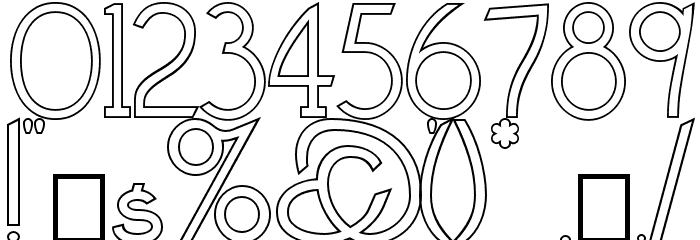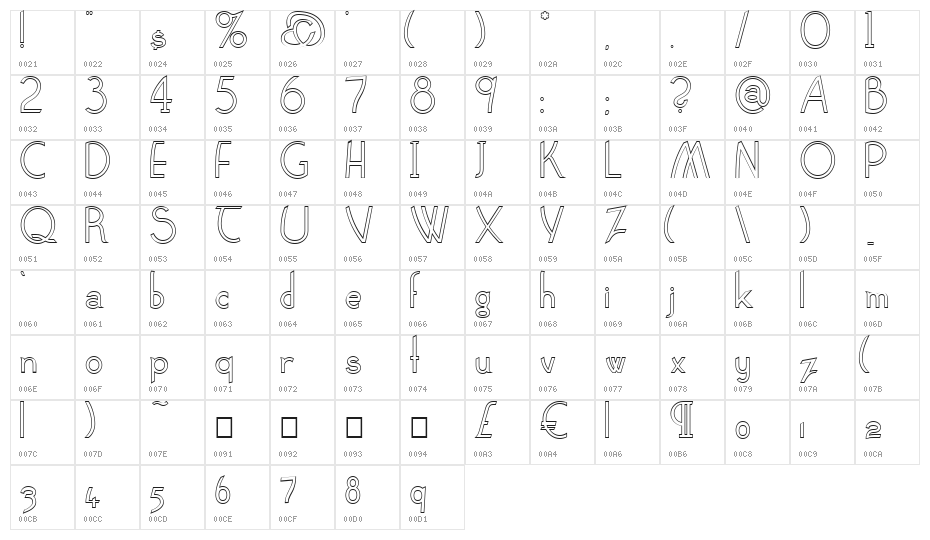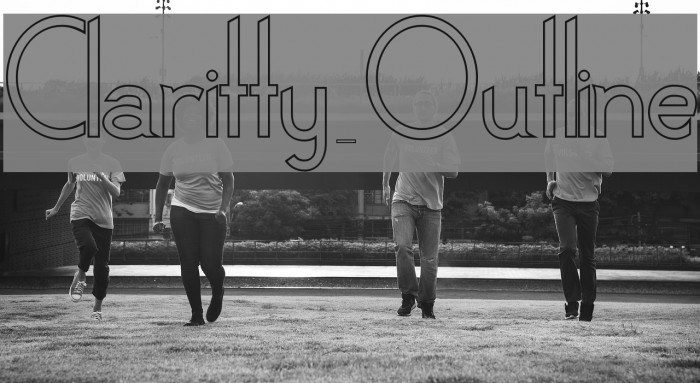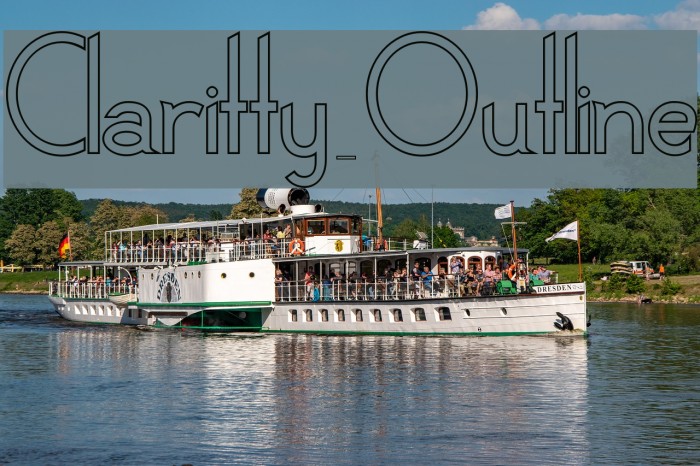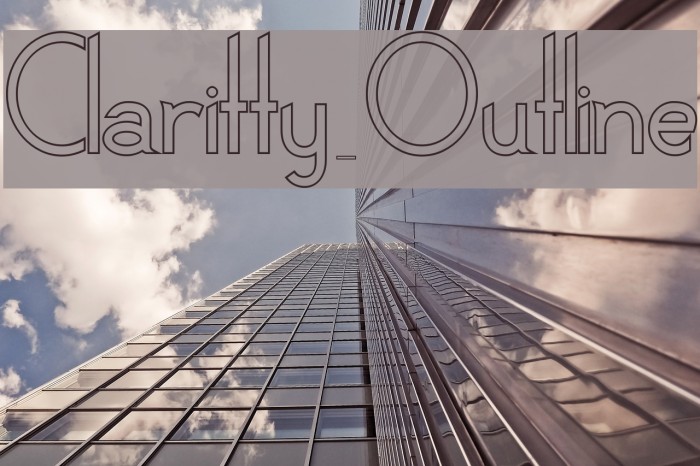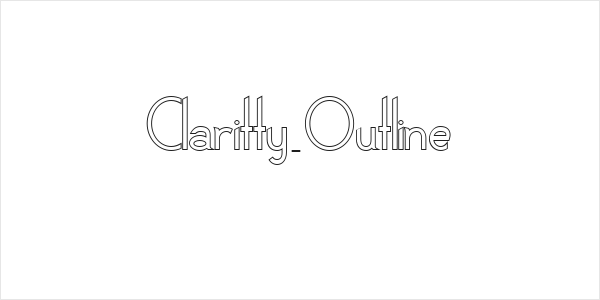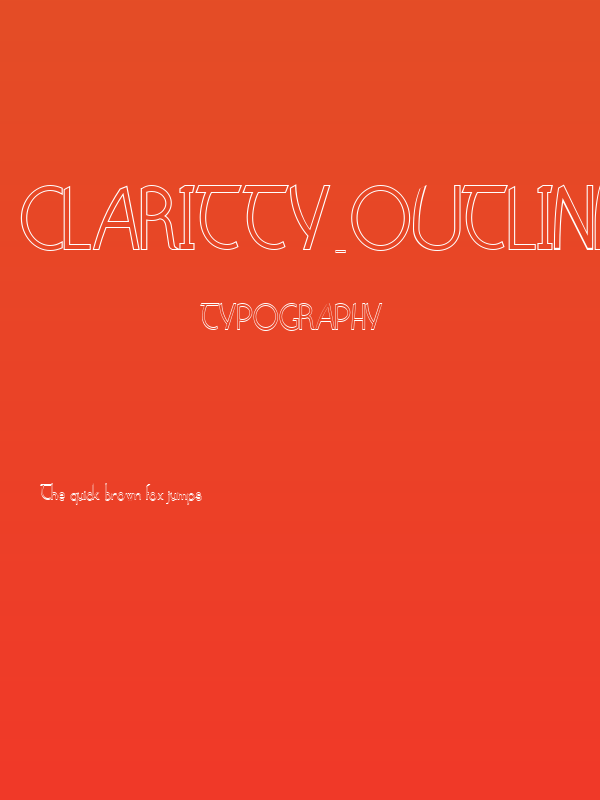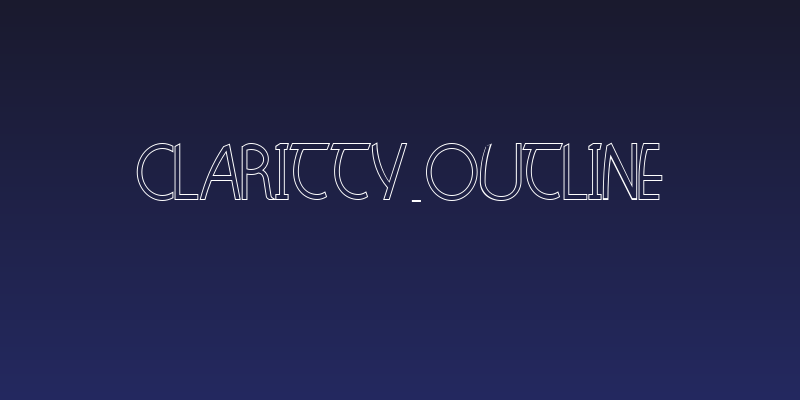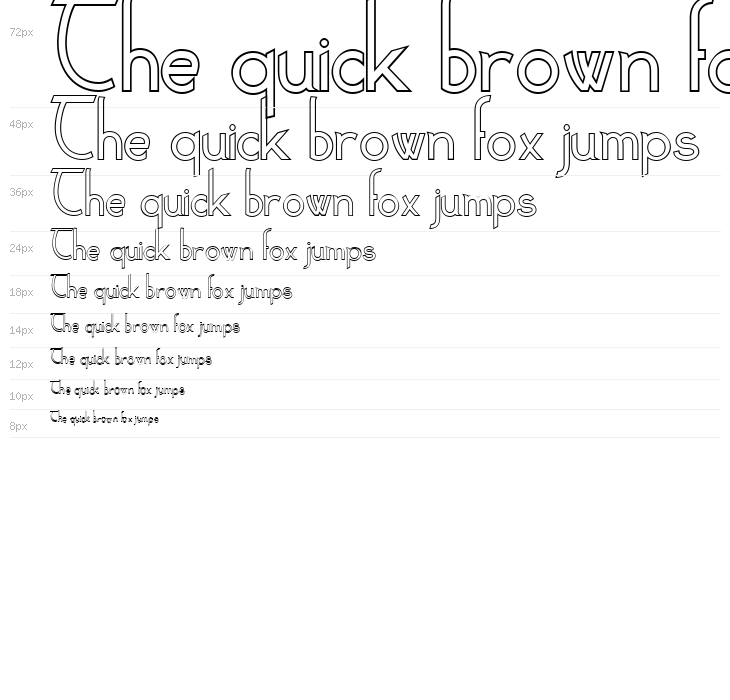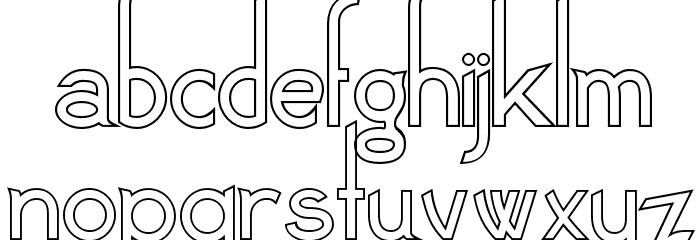
Claritty_Outline Font
Claritty_Outline Description
This font features a unique outline style that gives it a modern and artistic appearance. The uppercase letters are tall and slightly condensed, with clean lines and sharp angles that create a sense of elegance and sophistication. The lowercase letters maintain the same outline style, offering a cohesive look across different text cases. Numbers and special characters are designed with the same attention to detail, ensuring consistency throughout. The font's outline nature makes it ideal for projects that require a bold statement without overwhelming the viewer. Its geometric shapes and balanced proportions make it versatile for various design applications.
| Proposed Projects | Ideal for branding, posters, headlines, and artistic designs where a modern and bold statement is needed. |